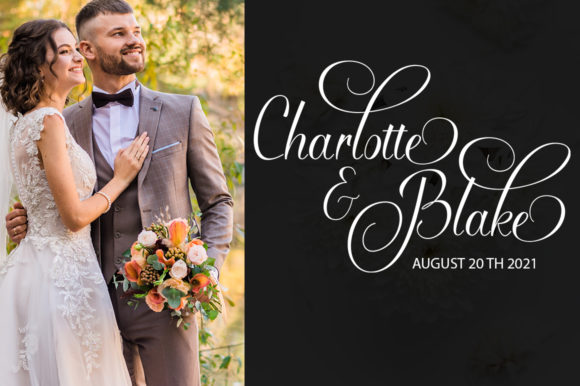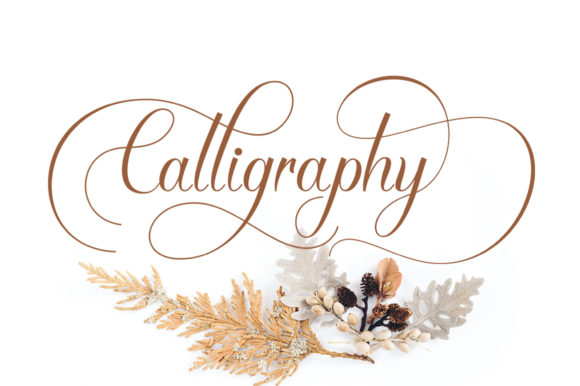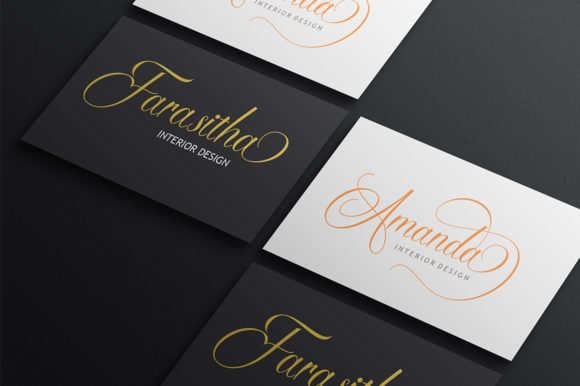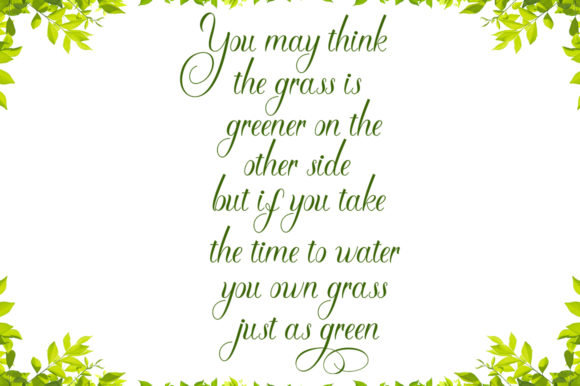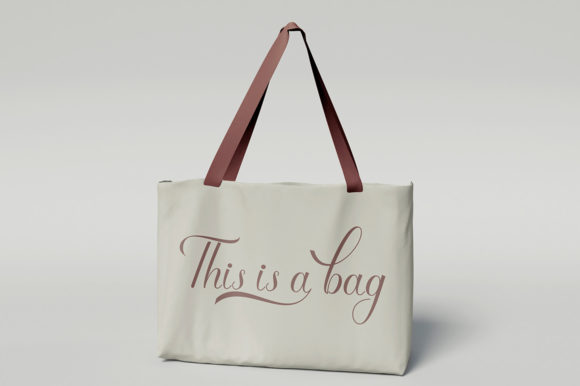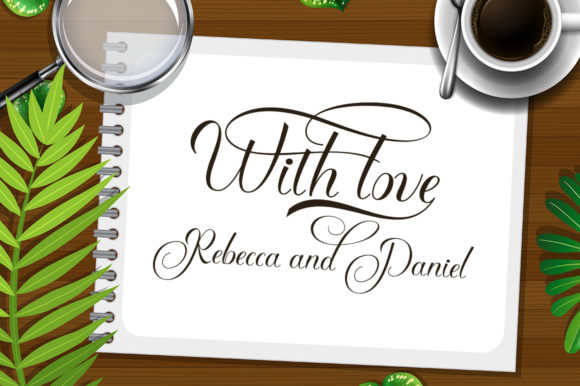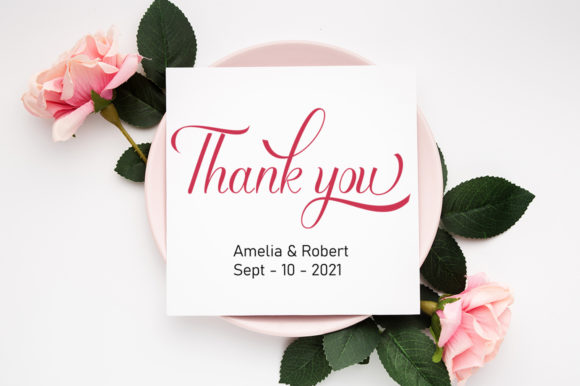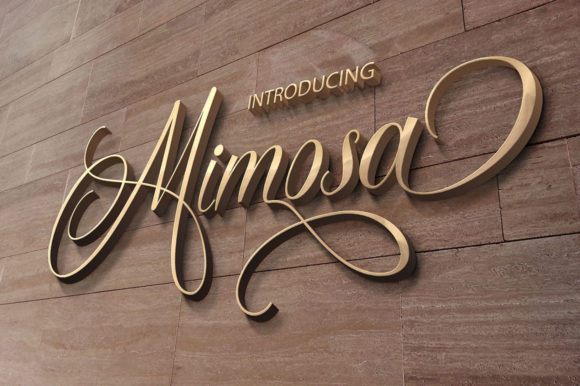
Mimosa Script Font
About Mimosa Script Font
Introducing Mimosa Script, a beautiful and refined script font that exudes class, elegance, and modernity. Whether you’re creating logos, branding materials, invitations, stationery, wedding designs, social media posts, or any other project, Mimosa Script is the perfect choice.
With its stylish and sophisticated appearance, Mimosa Script adds a touch of luxury and professionalism to your designs. The carefully crafted letterforms feature smooth curves and a balanced rhythm, creating a harmonious flow from one character to another. This font is designed to make your text stand out and leave a lasting impression on your audience.
Mimosa Script is versatile and adaptable, suitable for a wide range of design applications. Its elegant look is ideal for high-end brands, luxury products, fashion, beauty, and lifestyle projects. It can also bring a touch of refinement to wedding invitations, event signage, and personal stationery.
One of the key features of Mimosa Script is its PUA encoding, which allows easy access to a variety of beautiful glyphs and swashes. This gives you the freedom to customize and embellish your designs with decorative elements, flourishes, and unique letter variations. With just a few clicks, you can add extra flair and elegance to your typography.
Using Mimosa Script is a breeze, thanks to its user-friendly nature and legible letterforms. It ensures that your message is conveyed with clarity and style, making it a valuable asset in your font collection.
In summary, Mimosa Script is a beautiful and refined script font that adds a touch of class and elegance to your designs. Whether you’re creating logos, branding materials, invitations, or social media posts, this font will elevate your projects to a new level. With its PUA encoding, you have access to a range of stunning glyphs and swashes, allowing you to create truly unique and captivating designs.